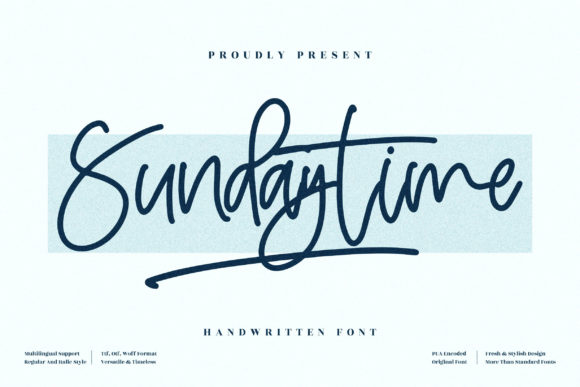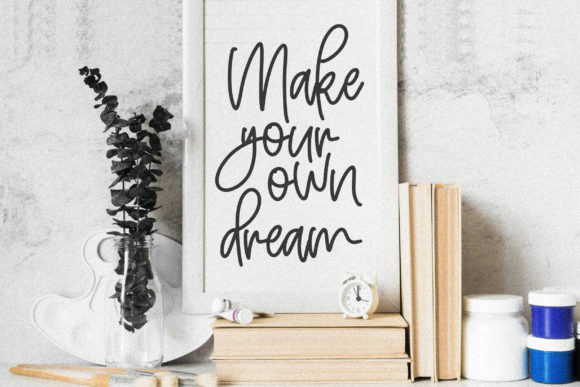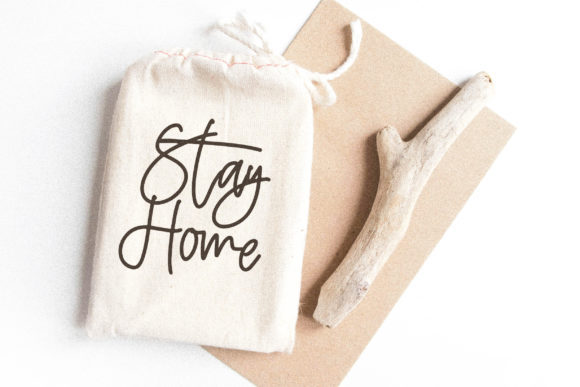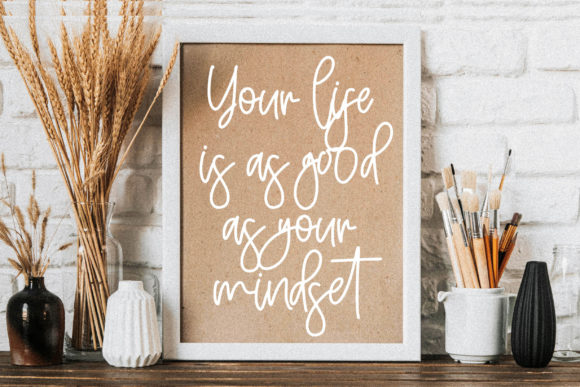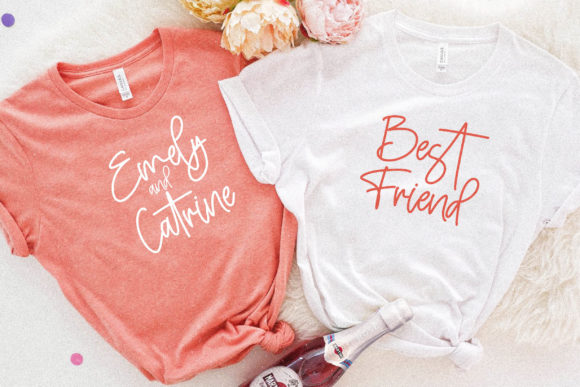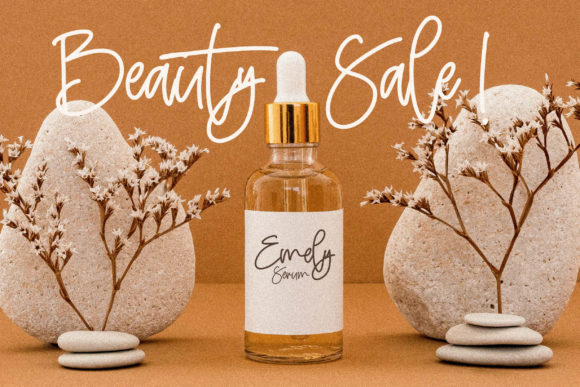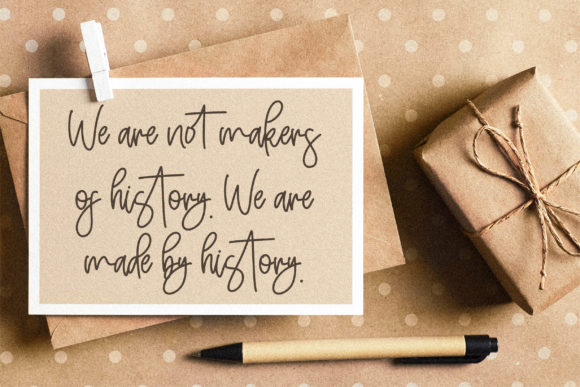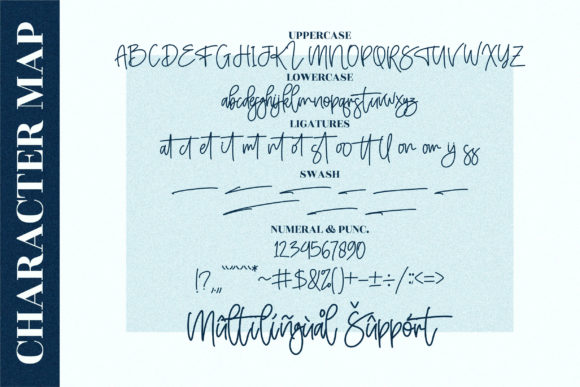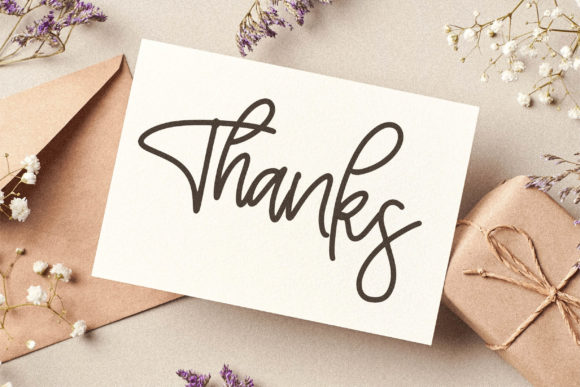
Sundaytime Font
About Sundaytime Font
Sundaytime is a thin lettered and versatile handwritten font. It has a wide spectrum of applications ranging from greeting cards to headlines and is guaranteed to add a romantic feel to your next project.